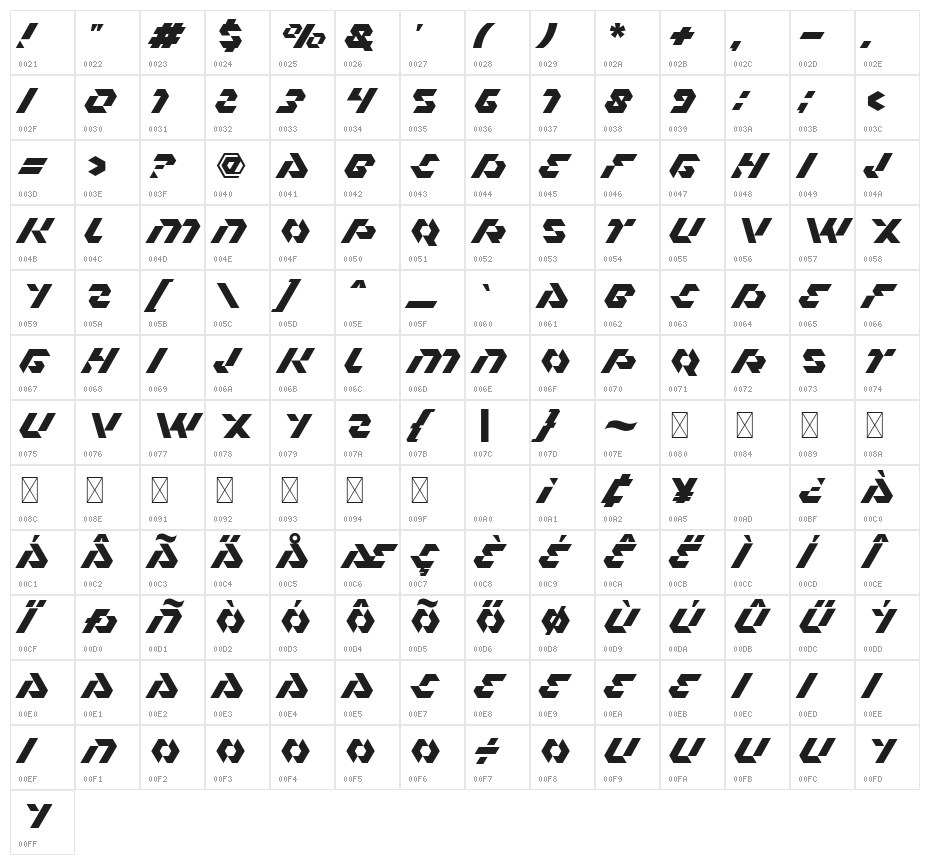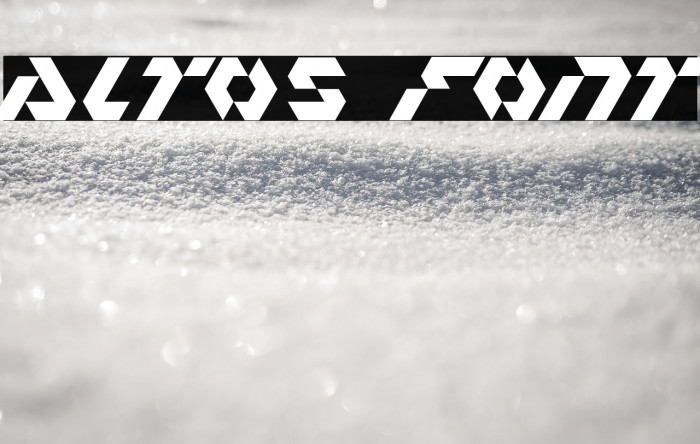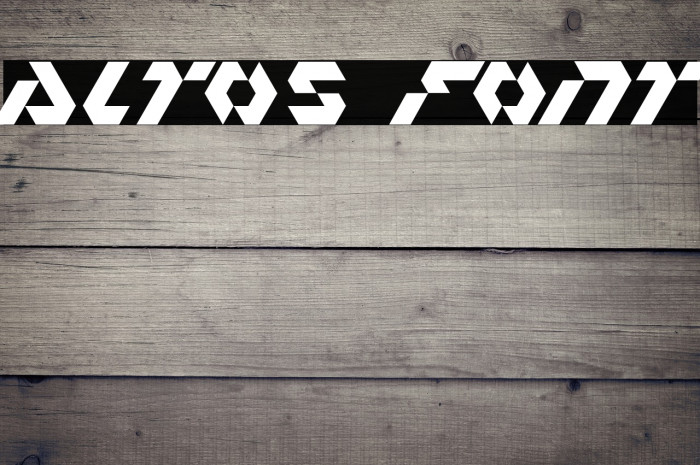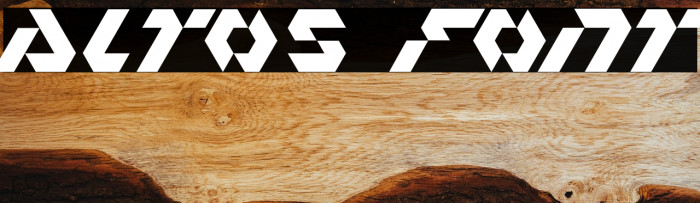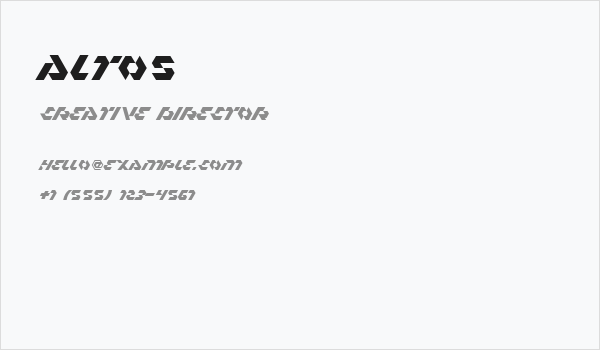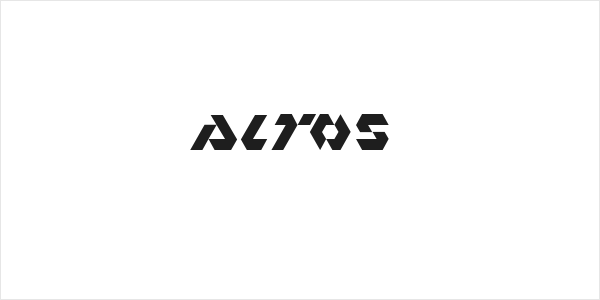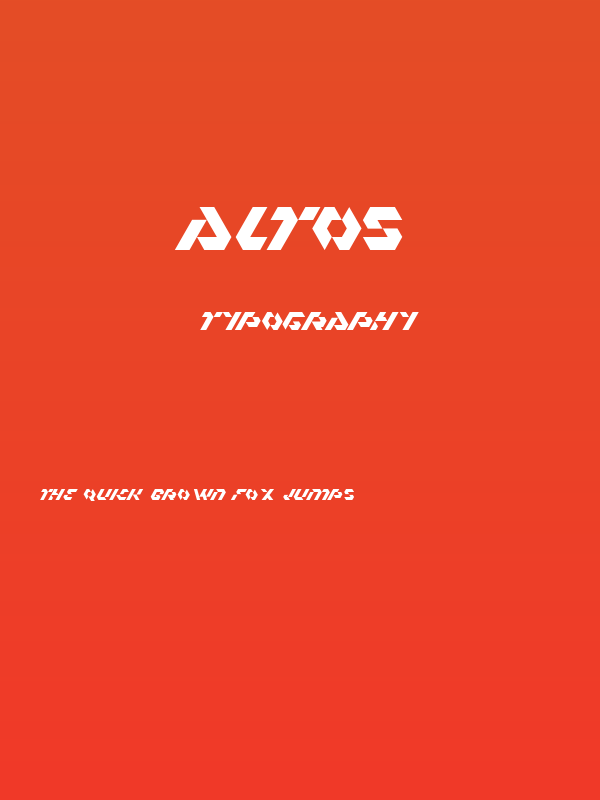
Altos Font
Altos Description
This font features a bold, geometric design with sharp angles and a futuristic aesthetic. The characters are constructed with a series of diagonal cuts and straight lines, creating a dynamic and edgy appearance. The uppercase and lowercase letters maintain a consistent style, with a strong emphasis on angularity and symmetry. The numbers and special characters follow the same design principles, ensuring uniformity across all glyphs. The overall look is modern and striking, making it suitable for projects that require a bold statement.